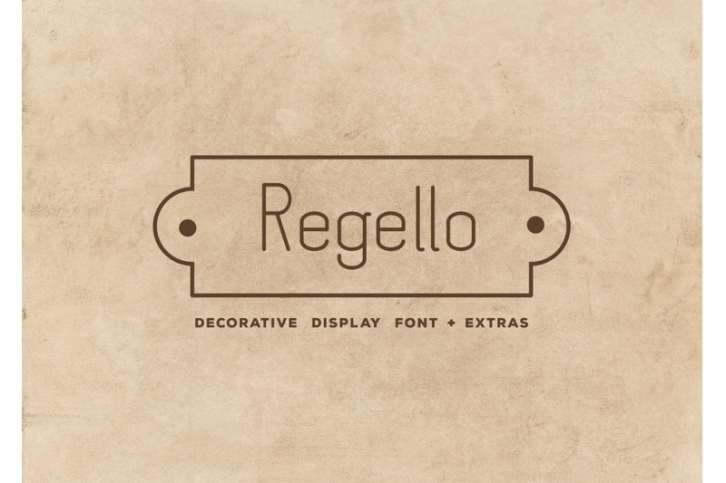
Regello Font Download
Regello is a font inspired by European cafe signage. It was named after a scenic city in Italy. Regello comes in upper and lower case as well as some punctuation. This font comes with OTF and TTF files for Mac or PC. It also comes with an EPS file of extra vectors that can be used with this font.